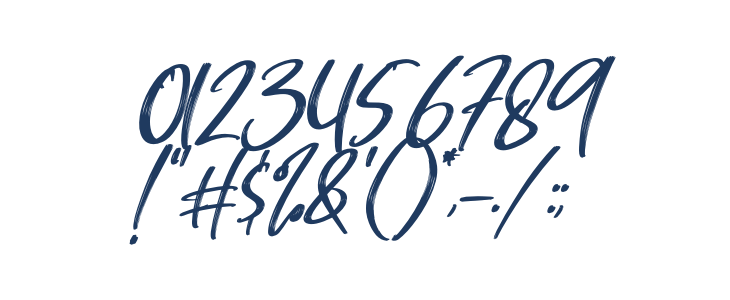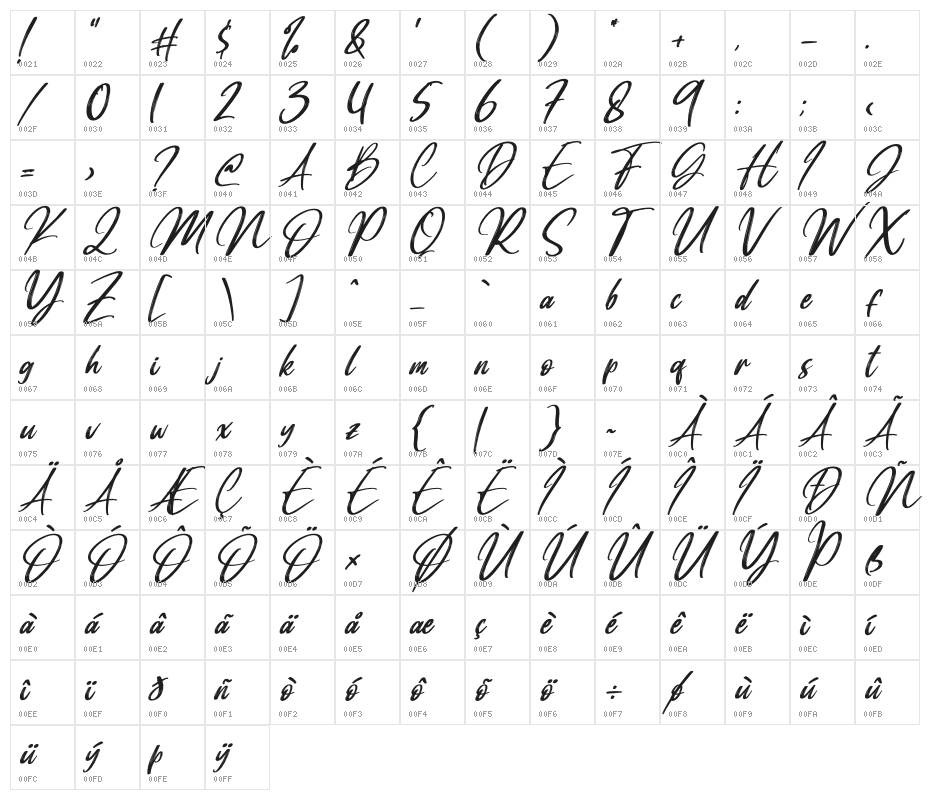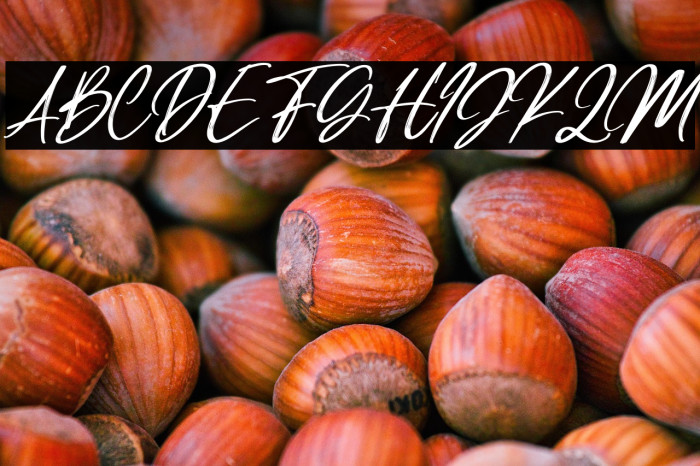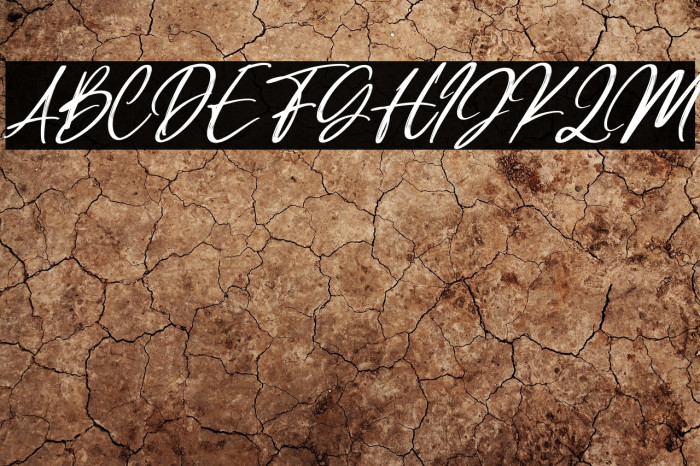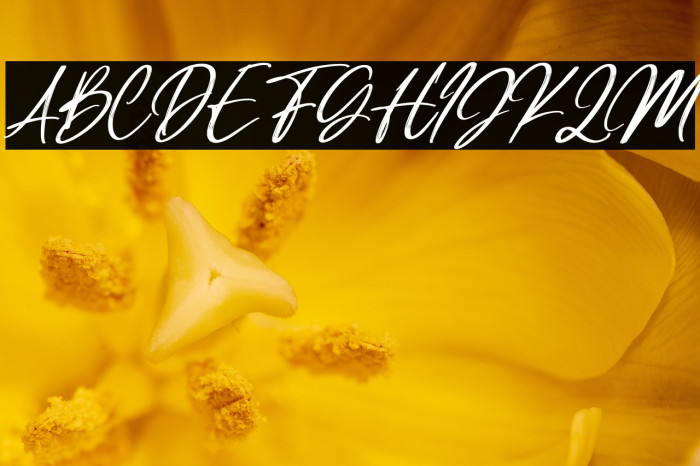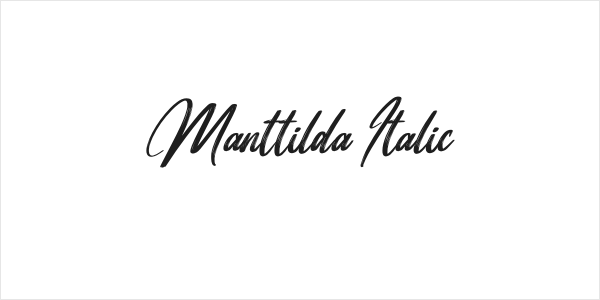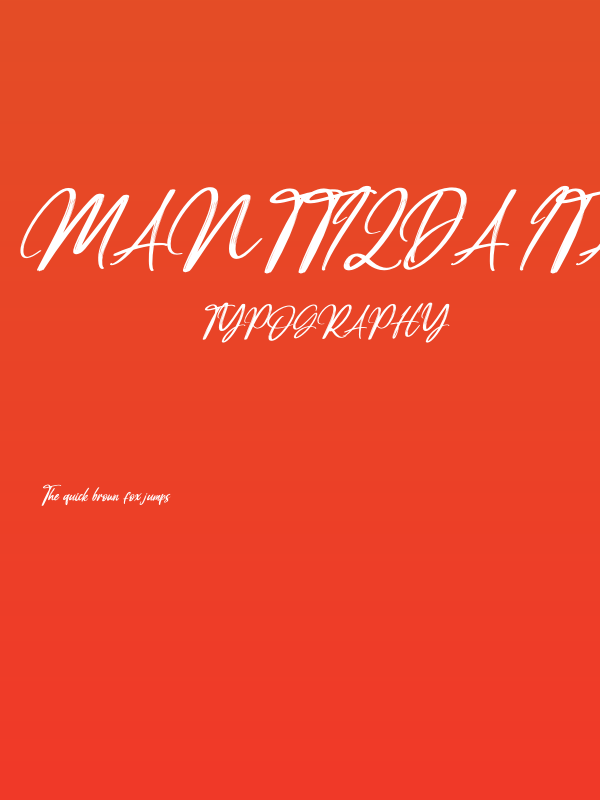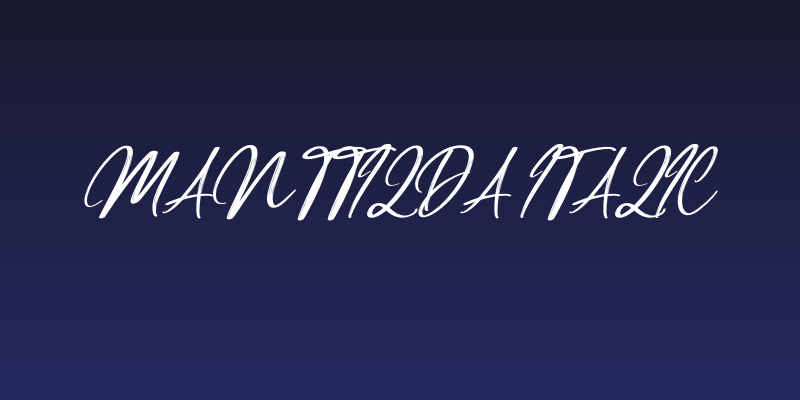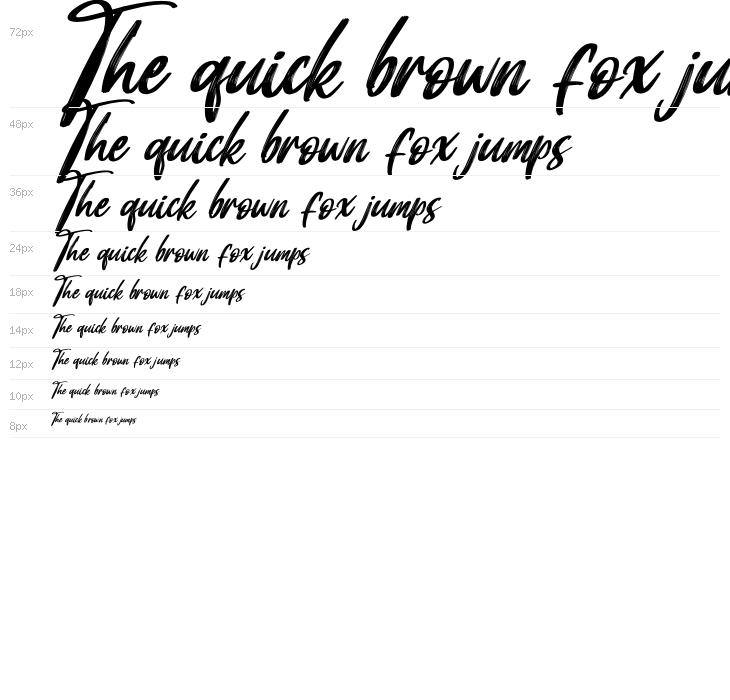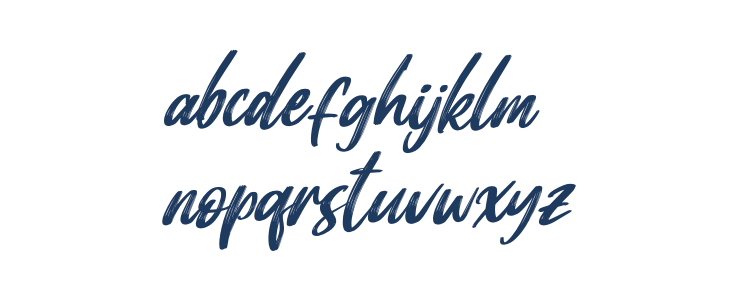
Manttilda Italic Font
Manttilda Italic Description
This font exudes a dynamic and expressive style, characterized by its fluid, cursive strokes and elegant slant. The uppercase letters are tall and graceful, with sweeping curves that convey a sense of movement and sophistication. The lowercase letters maintain a consistent flow, enhancing readability while retaining an artistic flair. Numbers and special characters are crafted with the same attention to detail, ensuring a cohesive look across all text elements. The overall design is both modern and timeless, making it suitable for a variety of creative applications.